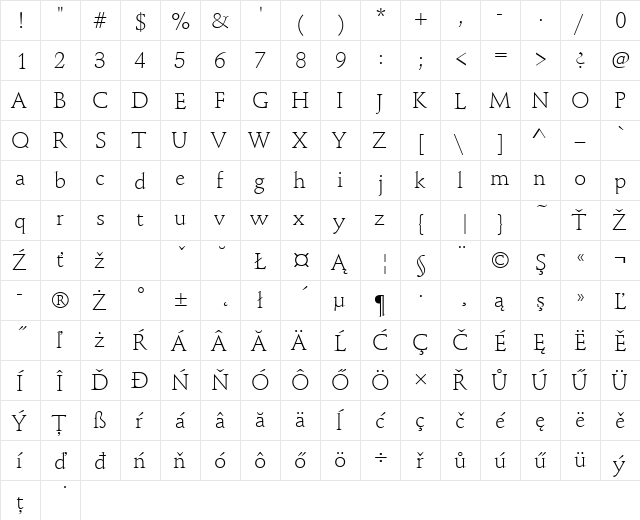
SchneidlerMedTEELig Regular Font Preview
SchneidlerMedTEELig Regular
SchneidlerMedTEELig Regular Font Details
Design Context for SchneidlerMedTEELig Typeface
SchneidlerMedTEELig takes a measured approach to typography — its balanced proportions and neutral character make it a reliable workhorse for both digital and print work.